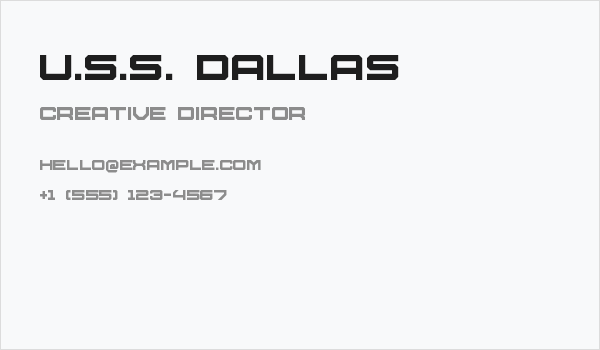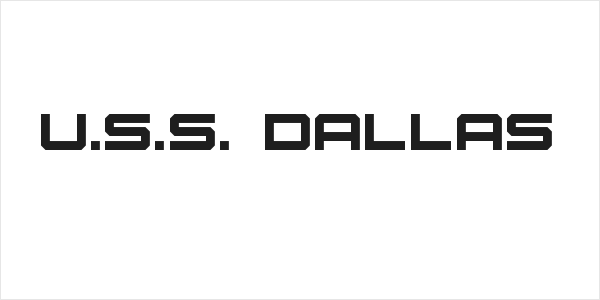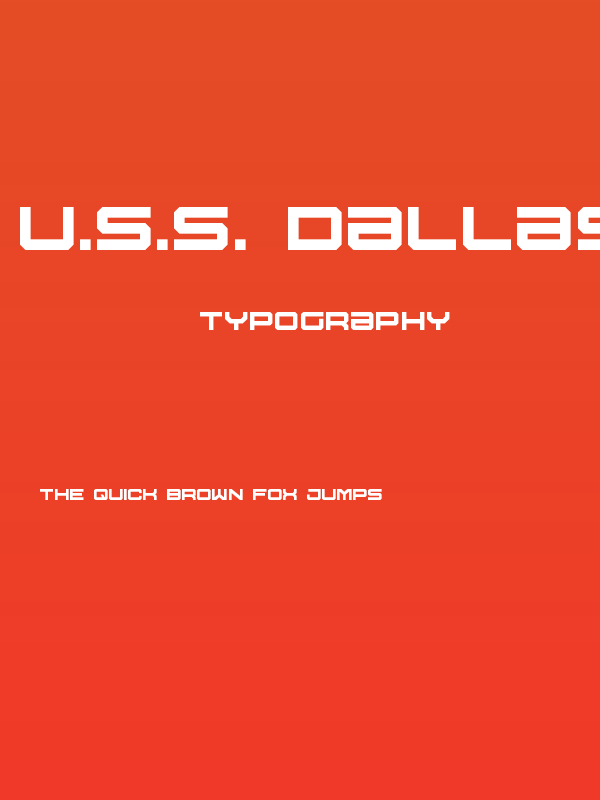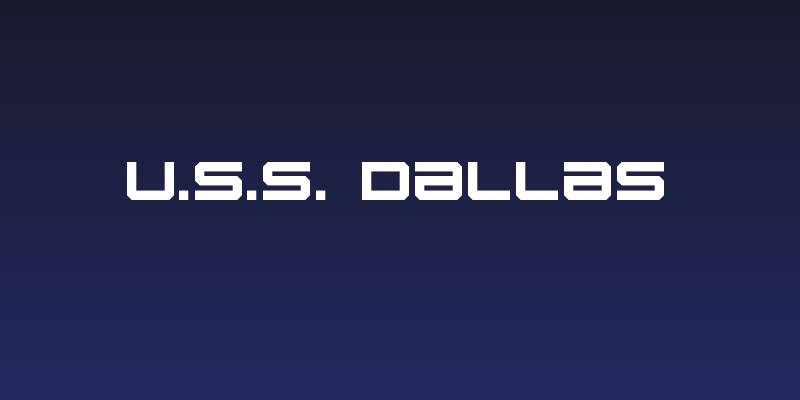
U.S.S. Dallas Font
U.S.S. Dallas Description
This font features a bold, geometric design with a futuristic and industrial feel. The characters are constructed with sharp angles and straight lines, giving it a strong and assertive appearance. The uppercase and lowercase letters maintain a consistent height, contributing to its uniform and structured look. The numerals and special characters follow the same design principles, ensuring cohesion across all elements. This font's distinct style makes it ideal for projects that require a modern and edgy aesthetic.
| Proposed Projects | Ideal for technology branding, video game titles, sci-fi movie posters, and modern logo designs. |